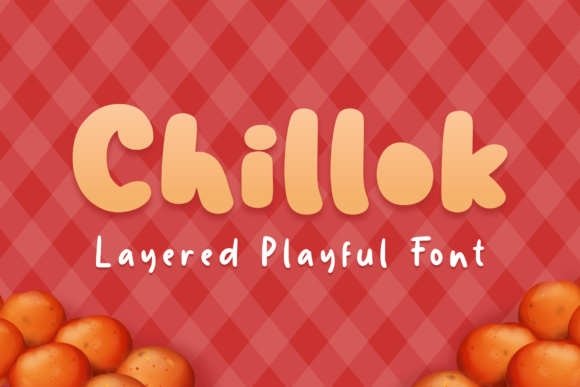
Introducing Chillok Font: The Sweet and Thick Lettered Display Font
Are you tired of using the same old fonts for your creative projects? Look no further than Chillok Font, a sweet and thick lettered display font that’s sure to make your ideas stand out. In this article, we’ll take a closer look at Chillok Font, its features, and how you can use it to elevate your designs.
What is Chillok Font?
Chillok Font is a display font that’s designed to make a statement. Its thick, bold letters are perfect for headlines, titles, and any other text that needs to grab attention. The font is also highly legible, making it easy to read even at large sizes.
Features of Chillok Font
So, what makes Chillok Font so special? Here are just a few of its key features:
- Thick and bold letters: Chillok Font’s letters are thick and bold, making them perfect for display text.
- Sweet and playful feel: Despite its boldness, Chillok Font has a sweet and playful feel that’s perfect for creative projects.
- Highly legible: Chillok Font is designed to be easy to read, even at large sizes.
- Versatile: Chillok Font can be used for a wide range of projects, from posters and flyers to social media graphics and website headers.
How to Use Chillok Font
Now that we’ve covered the features of Chillok Font, let’s talk about how to use it. Here are a few ideas to get you started:
1. Use Chillok Font for Headlines and Titles
Chillok Font is perfect for headlines and titles, thanks to its bold and attention-grabbing letters. Use it to create eye-catching headlines for your blog posts, articles, or social media graphics.
2. Create Eye-Catching Posters and Flyers
Chillok Font is also great for creating posters and flyers. Its bold letters and playful feel make it perfect for advertising events, promoting products, or announcing sales.
3. Add a Personal Touch to Your Social Media Graphics
If you’re looking to add a personal touch to your social media graphics, Chillok Font is a great choice. Use it to create custom graphics for your Instagram stories, Facebook posts, or Twitter headers.
4. Use Chillok Font for Website Headers
Finally, Chillok Font can also be used for website headers. Its bold letters and high legibility make it perfect for creating eye-catching headers that draw visitors in.
Tips for Using Chillok Font
Here are a few tips to keep in mind when using Chillok Font:
- Use it sparingly: While Chillok Font is bold and attention-grabbing, it can be overwhelming if used too much. Use it sparingly to create emphasis and draw attention to key text.
- Pair it with other fonts: Chillok Font can be paired with other fonts to create a unique and interesting look. Try pairing it with a sans-serif font for a modern look or a script font for a more elegant feel.
- Experiment with colors: Chillok Font looks great in a variety of colors, so don’t be afraid to experiment. Try using it in bright, bold colors or more muted, pastel shades.
In conclusion, Chillok Font is a sweet and thick lettered display font that’s perfect for creative projects. Its bold letters, playful feel, and high legibility make it a great choice for headlines, titles, and any other text that needs to grab attention. By following the tips outlined in this article, you can use Chillok Font to elevate your designs and make them stand out.
Q: What is Chillok Font?
A: Chillok Font is a sweet and thick lettered display font that’s perfect for creative projects.
Q: Can I use Chillok Font for my website?
A: Yes, you can use Chillok Font for your website. It’s perfect for creating eye-catching headers and titles.